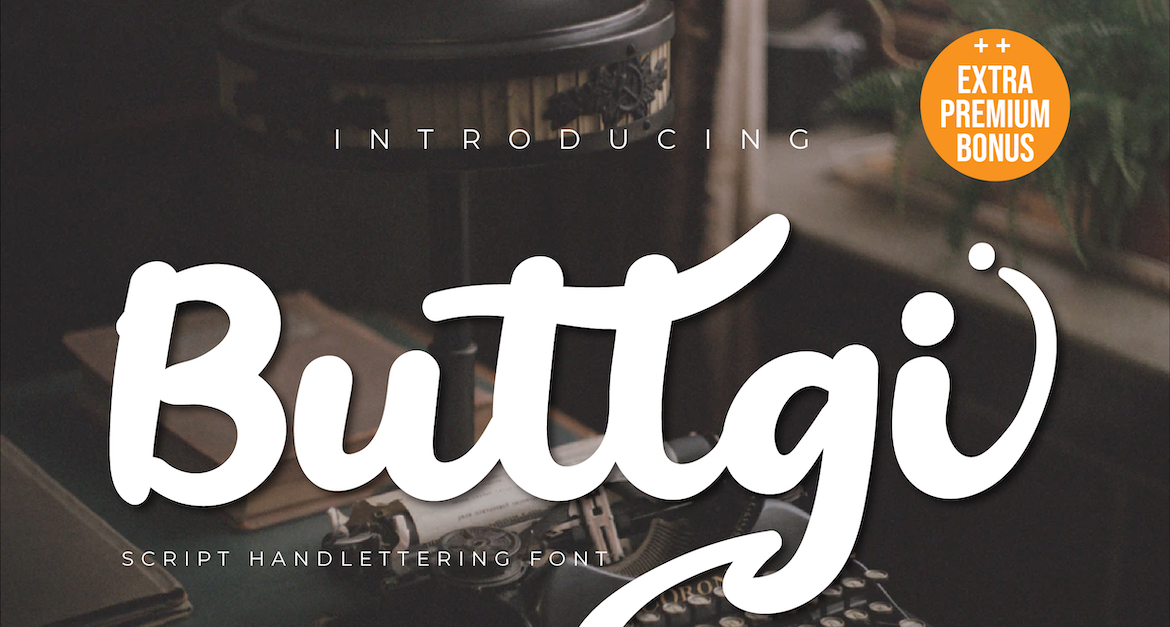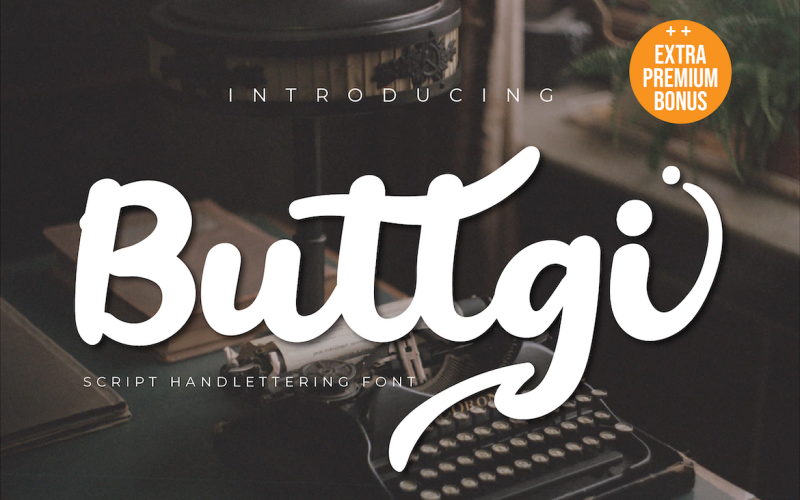
Buttgi Font
Buttgi is a flowing, thick lettered handwritten font, created with original hand-drawn strokes. Defined by a relaxed and elegant feel, as well as a beautiful typographic harmony, Buttgi is the perfect choice for each of your creative ideas!
This charming font also offers the beauty of abstract typography harmony for a wide variety of design projects, including digital natural handwriting for designs, quote designs, for social media business designs, advertisements, trademarks, food and beverage promotion banners, text, posters, signature, and all designs require handwriting or whatever design you want.